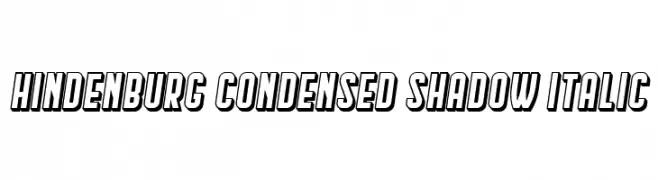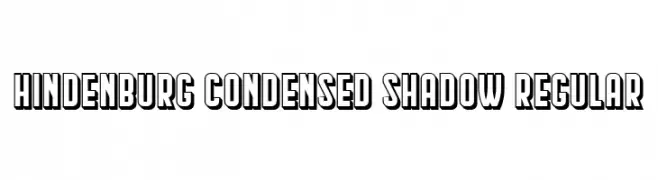
• Higher Monday Regular
A flowing, cursive font with elegant loops and smooth transitions.
• HigherMonday-Regular
A smooth, flowing script font with elegant curves and a handwritten aesthetic.
• Hilda Sonnenschein
An ornate and decorative blackletter-style font with intricate flourishes.
• Hilda Sonnenschein Dingbats
A whimsical collection of floral and celestial dingbats with intricate designs.
• Hilda Sonnenschein Extra Characters
An ornate and decorative blackletter-style font with intricate flourishes.
• Hindenburg Condensed Italic
A bold, condensed, and italic font with a modern, dynamic style.
• Hindenburg Condensed Regular
A bold, condensed font with geometric shapes and clean lines, ideal for impactful headlines.
• Hindenburg Condensed Shadow Italic
Bold, condensed, italicized font with a shadow effect for dynamic impact.
• Hindenburg Condensed Shadow Regular
A bold, condensed font with a shadow effect for a three-dimensional look.
• Hindenburg Italic
A bold, italicized font with a modern, dynamic style.